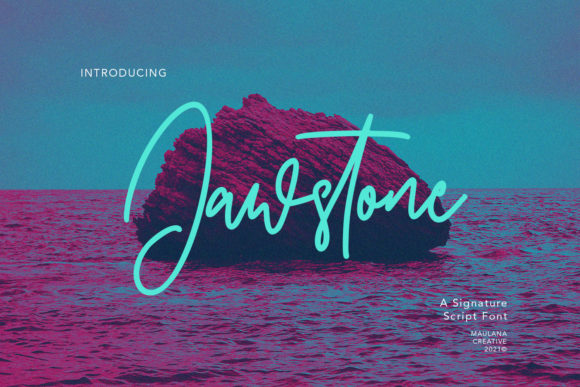
Introducing Jawstone Font, the captivating script font that will ignite your creativity and leave an everlasting impression on your audience. Crafted by the talented Maulana Creative, this extraordinary font family is designed to elevate your words and transform your messages into works of art.
Jawstone Font boasts a delicate and elegant appearance, featuring thin, flowing letters that dance across the page. This versatile script exudes a timeless charm, making it the perfect choice for adding a touch of sophistication and romance to any project.
Whether you're creating heartfelt greeting cards, captivating headlines, or eye-catching logos, Jawstone Font will effortlessly convey your message with style and grace. Its remarkable versatility allows it to adapt seamlessly to a wide range of applications, from personal correspondence to professional designs.
Embrace the allure of Jawstone Font today and unlock the power to create truly captivating and memorable experiences. Let your words flow effortlessly, capturing the hearts and minds of your audience with this extraordinary script font.
Experience the magic of Jawstone Font and elevate your communication to new heights. Its enchanting strokes will leave an unforgettable mark, leaving a lasting impression that resonates with elegance and charm.